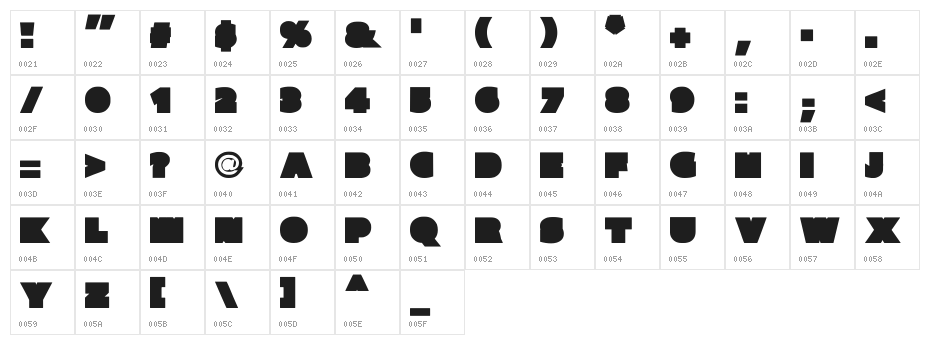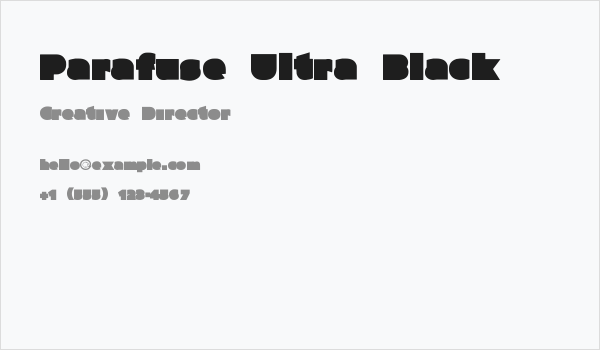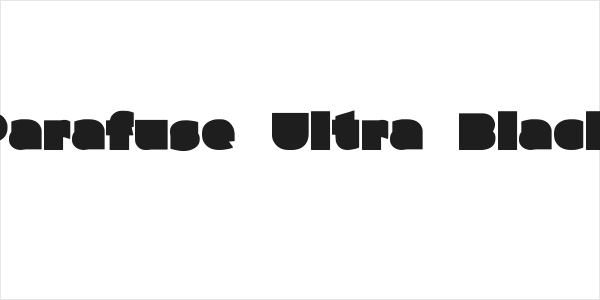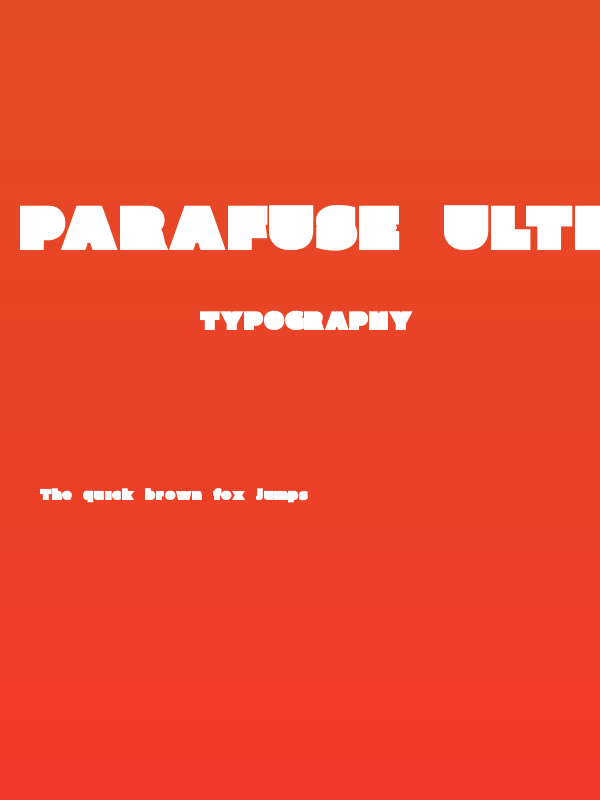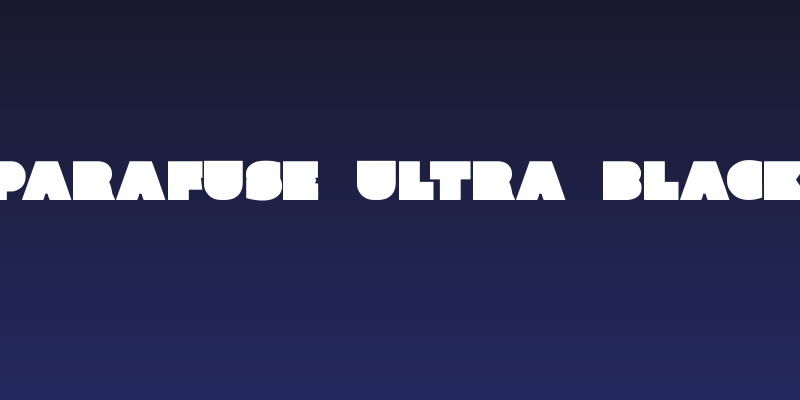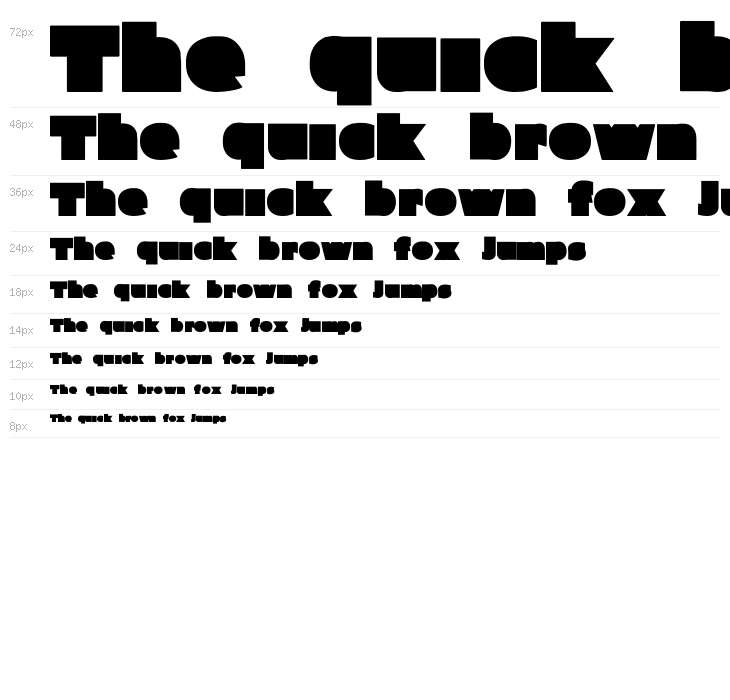
Parafuse Ultra Black Font
Parafuse Ultra Black Description
This font features a bold and striking design with thick, blocky characters that create a strong visual impact. The uppercase and lowercase letters maintain a consistent weight, contributing to a cohesive and powerful appearance. The numbers and special characters follow the same bold style, ensuring uniformity across all glyphs. The font's geometric shapes and sharp angles give it a modern and edgy feel, making it suitable for attention-grabbing headlines and display purposes. Its ultra-black weight emphasizes its presence, making it ideal for projects that require a commanding and assertive typeface.
| Proposed Projects | Ideal for posters, branding, headlines, and any project needing a bold statement. |